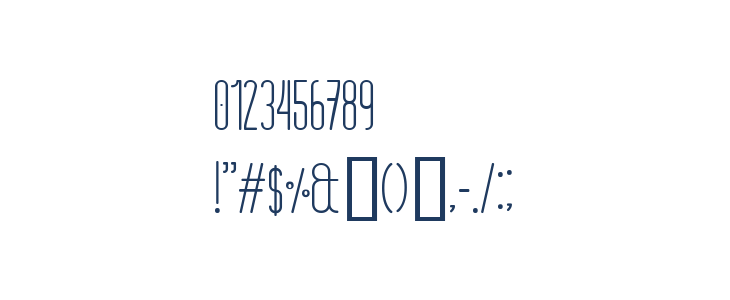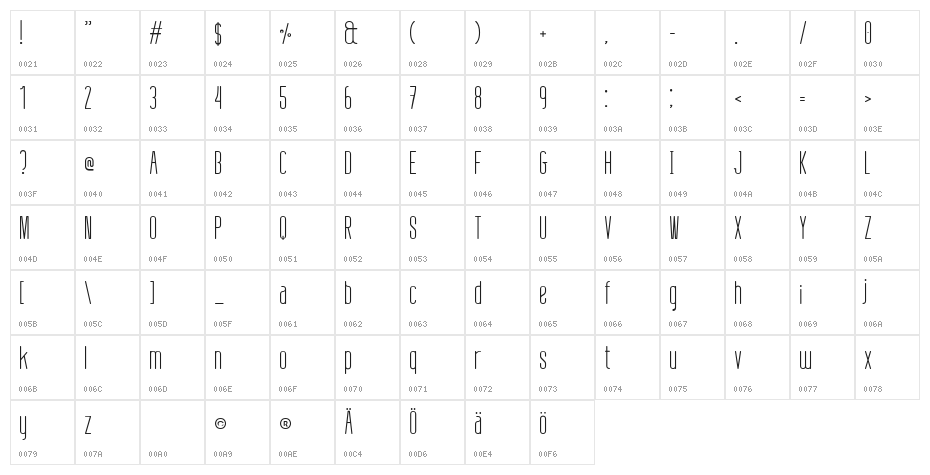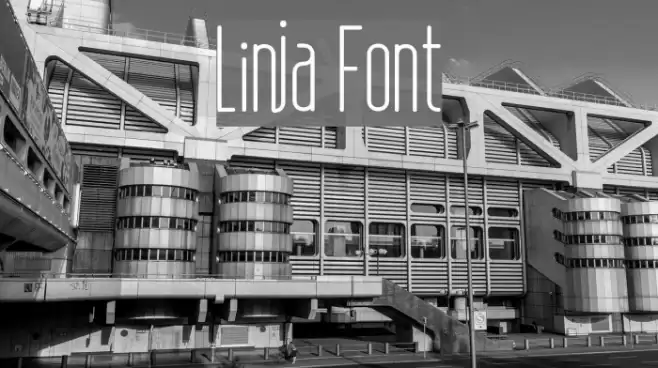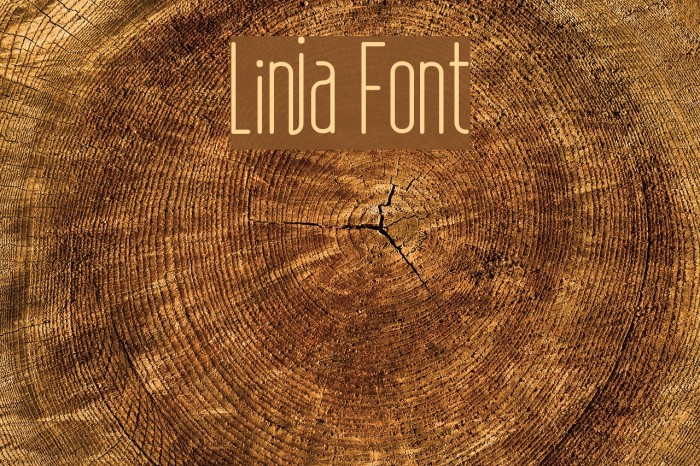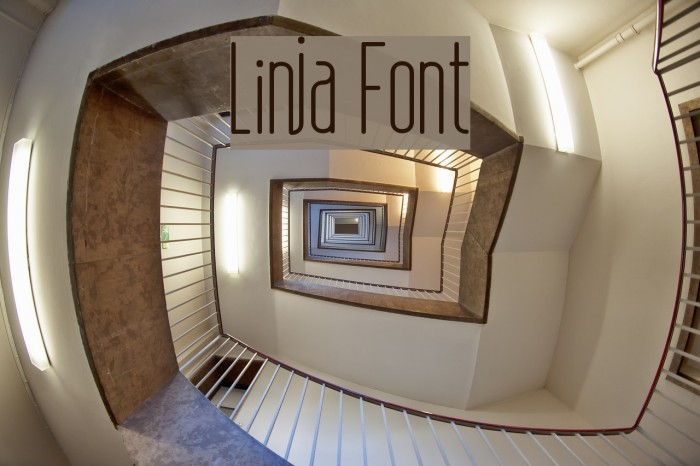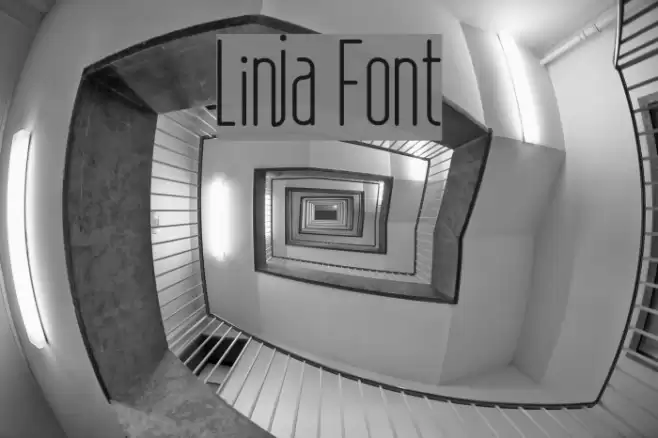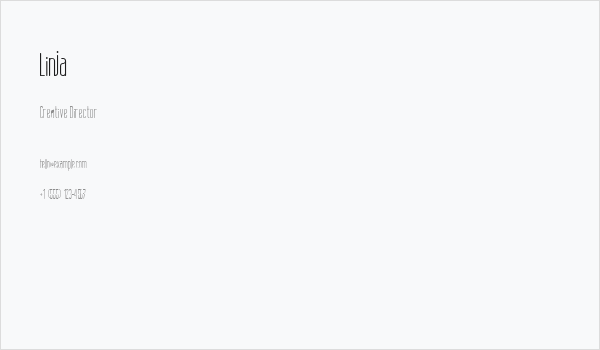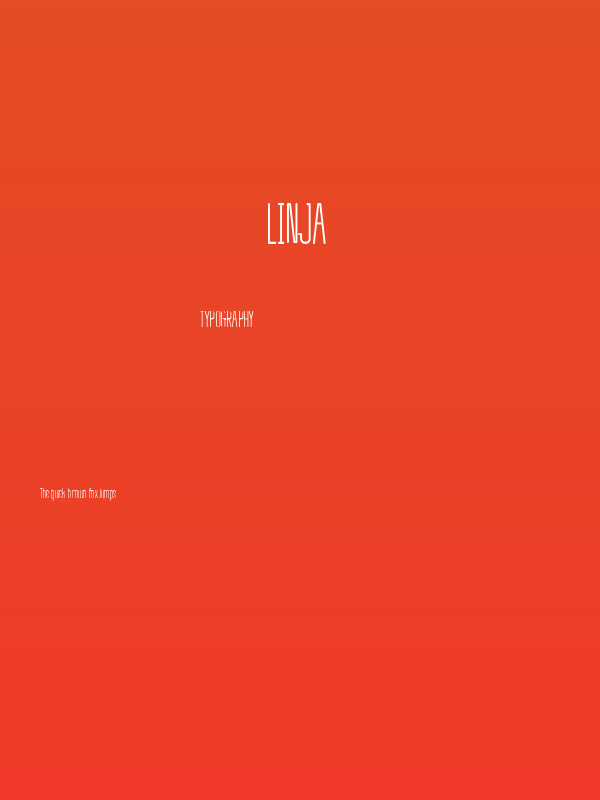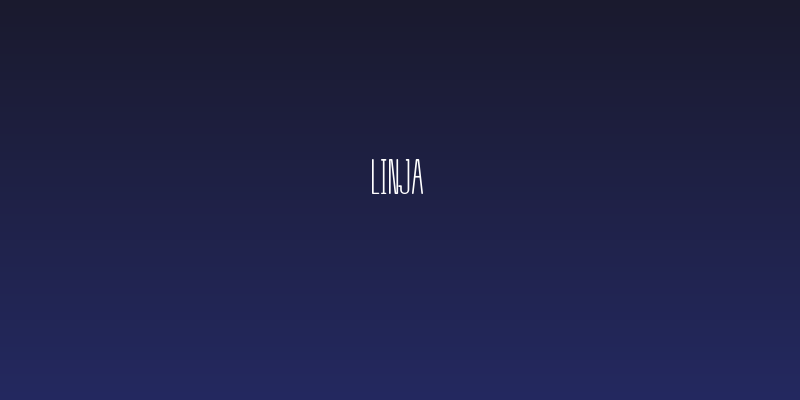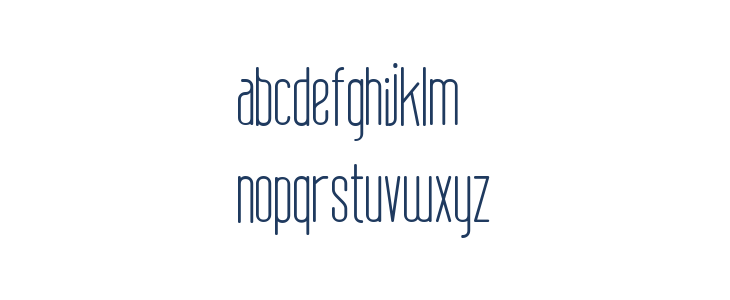
Linja Font
Linja Description
This font features a modern and sleek design characterized by tall, narrow letters with a consistent stroke width. The uppercase and lowercase letters maintain a uniform height, giving the font a cohesive and streamlined appearance. The numerals are similarly styled, ensuring readability and consistency across different uses. Special characters are included, matching the overall aesthetic with clean lines and minimalistic design. This font's elongated form and geometric precision make it suitable for contemporary design projects.
| Proposed Projects | Ideal for modern branding, editorial design, posters, and digital interfaces where a sleek and contemporary look is desired. |